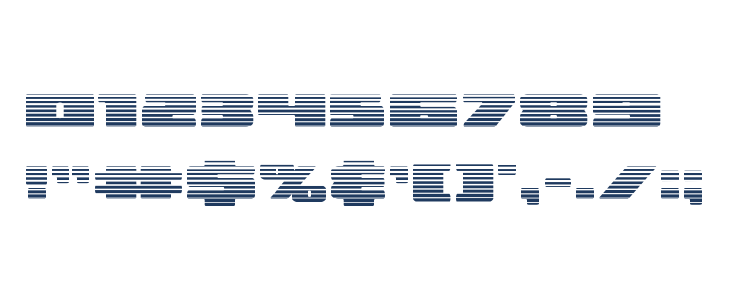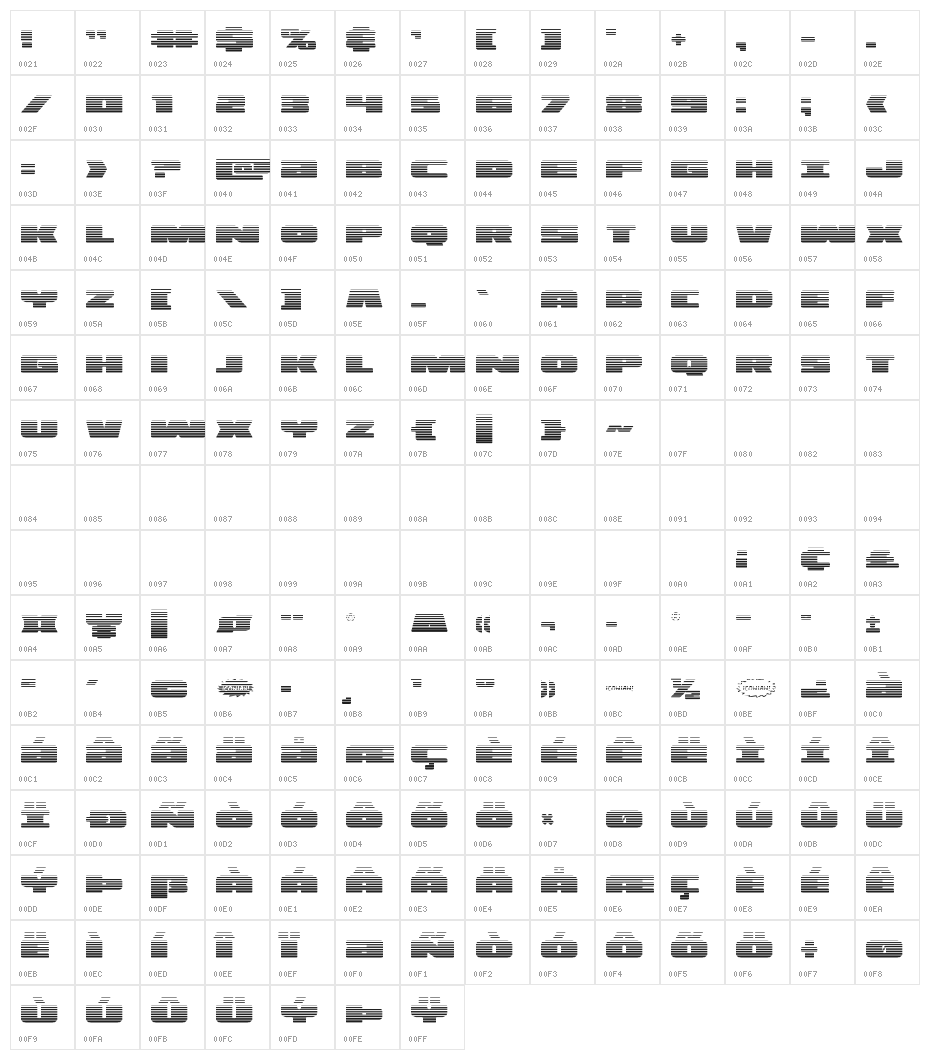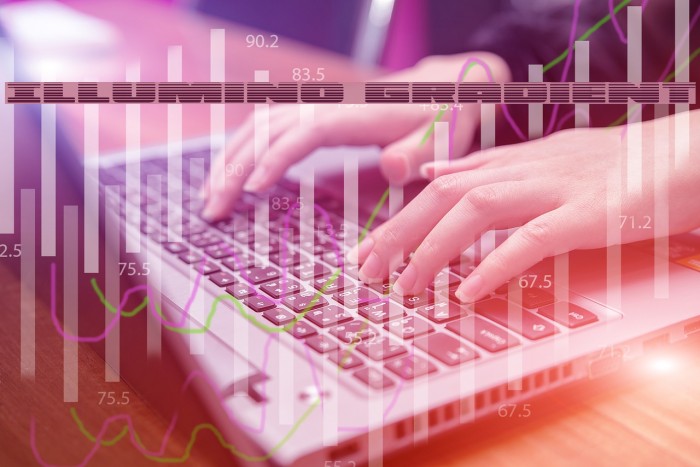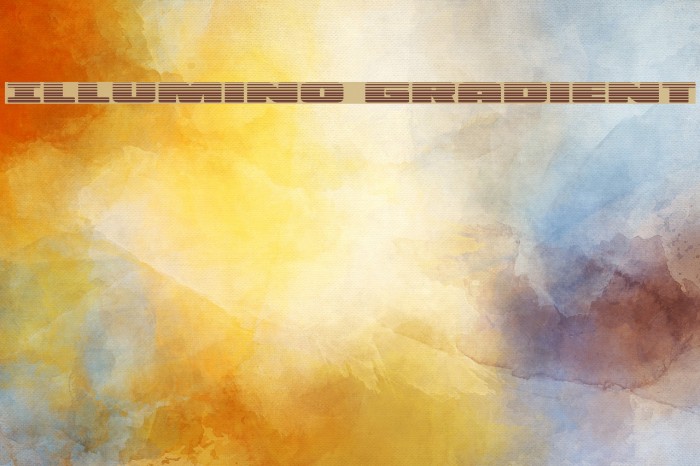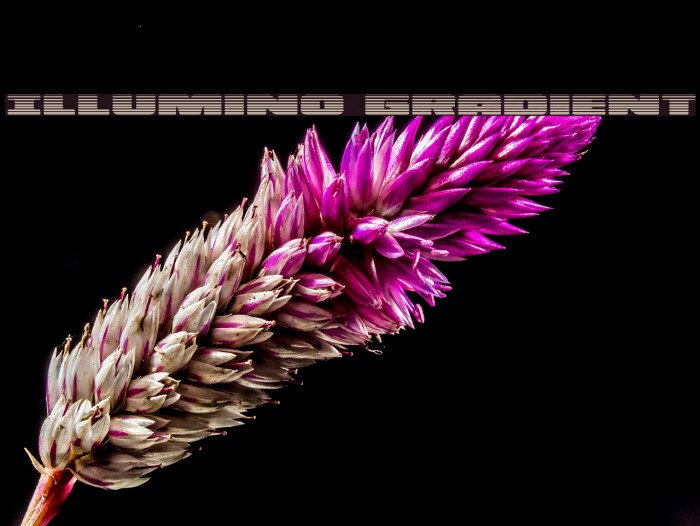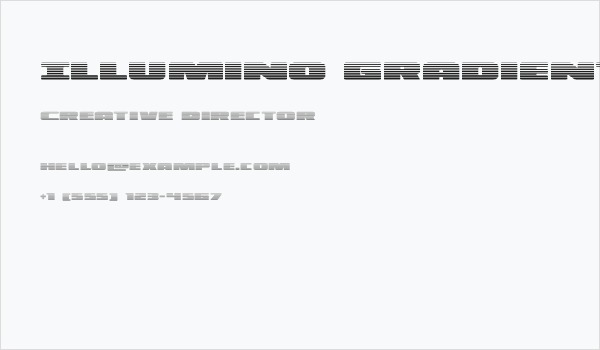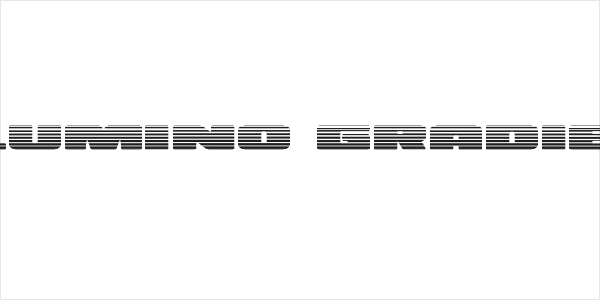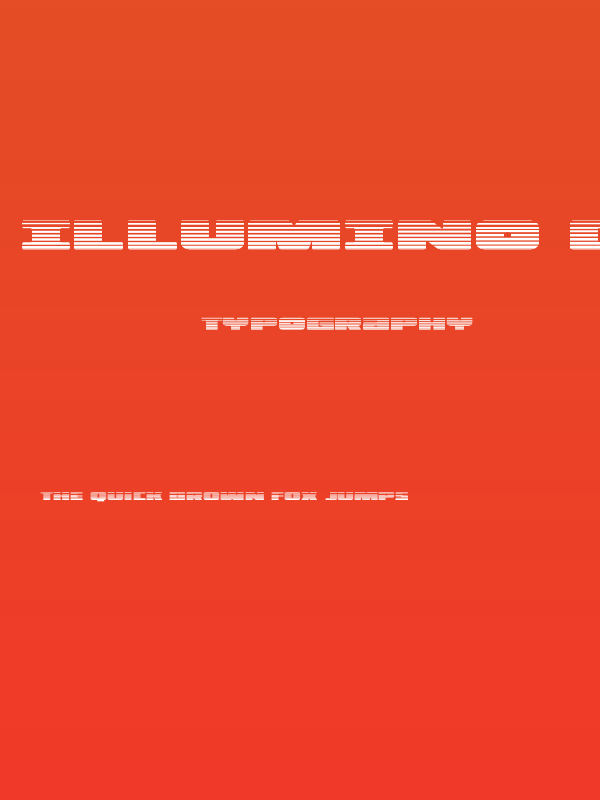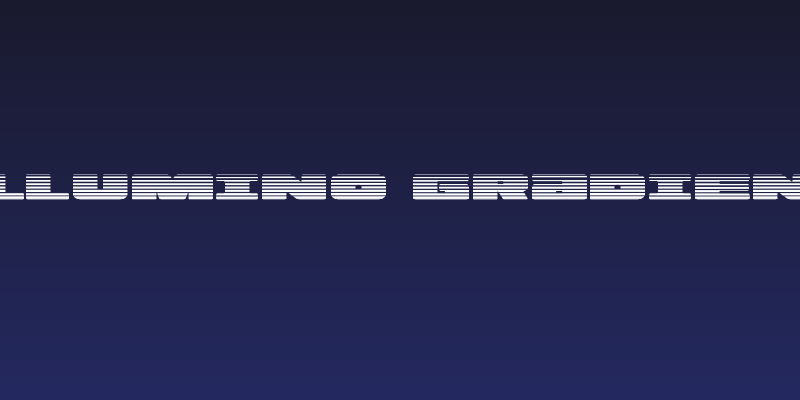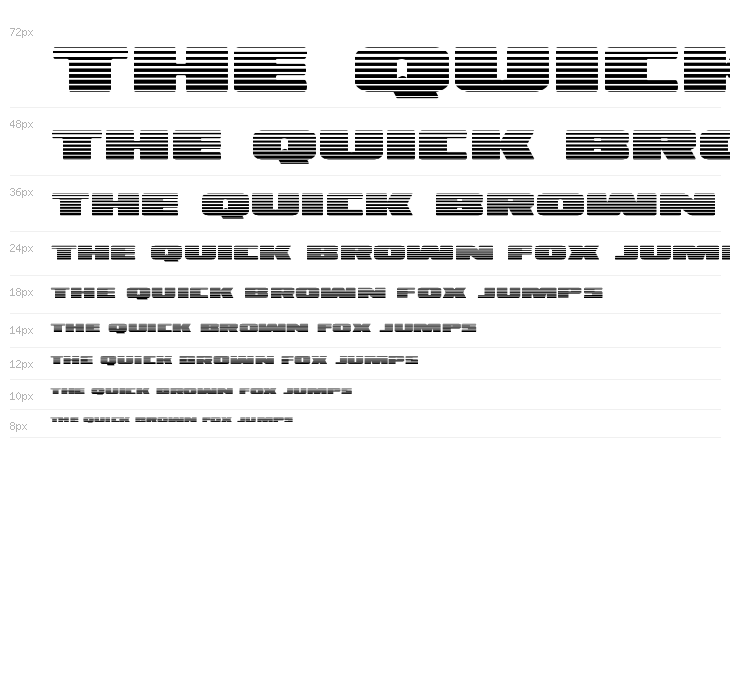
Illumino Gradient Font
Illumino Gradient Description
This font features a bold, futuristic design with a unique striped pattern that gives each character a sense of movement and depth. The uppercase letters are uniform in height, creating a cohesive and structured appearance. The horizontal lines within each character add a dynamic visual effect, making it stand out in digital and print media. The numbers and special characters maintain the same stylistic elements, ensuring consistency across all glyphs. This font is ideal for projects that require a modern and eye-catching aesthetic.